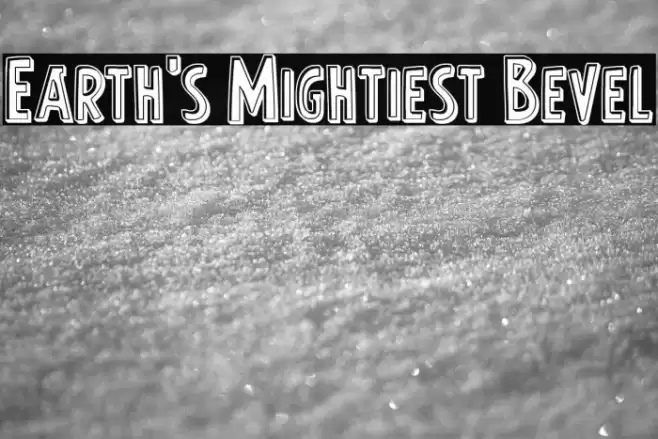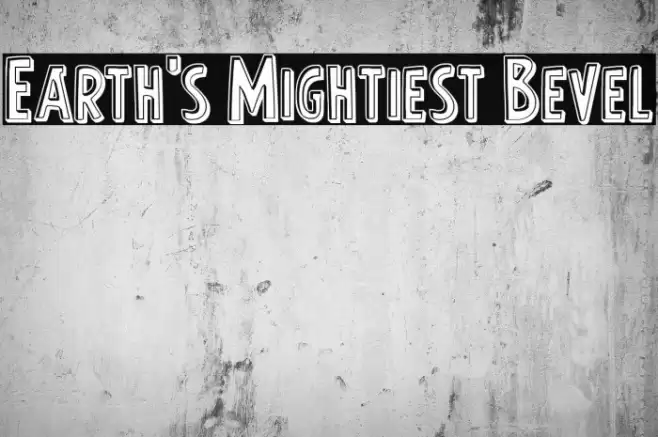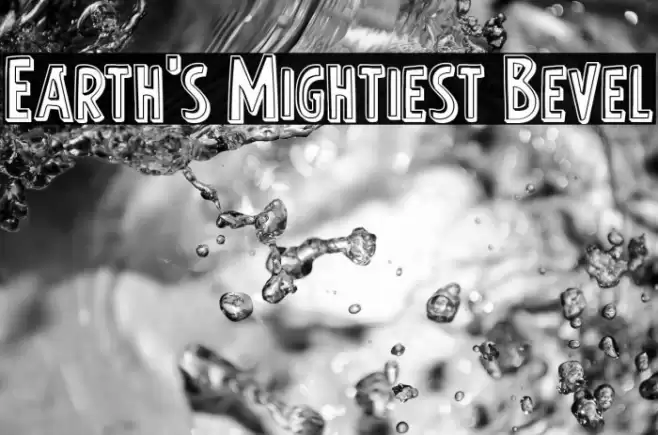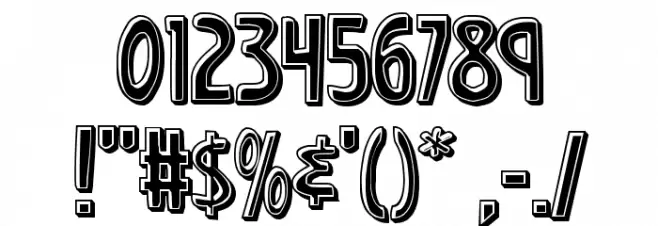
Earth's Mightiest Bevel Font
Earth's Mightiest Bevel Description
This font features a bold, dynamic style with a strong presence. Each character is outlined with a thick, black border that enhances its visibility and impact. The letters are uppercase and lowercase, with numerals and a selection of special characters. The design is playful yet assertive, making it suitable for attention-grabbing headlines or titles. The beveled edges add a three-dimensional effect, giving the font a unique and modern appearance. Its boldness and distinct outline make it stand out, ensuring readability even from a distance.
A bold, outlined font with a dynamic, three-dimensional style from Regular fonts.
- Font: Earth's Mightiest Bevel
- Proposed Projects: Ideal for comic book covers, posters, video game titles, and branding that requires a strong, eye-catching font.